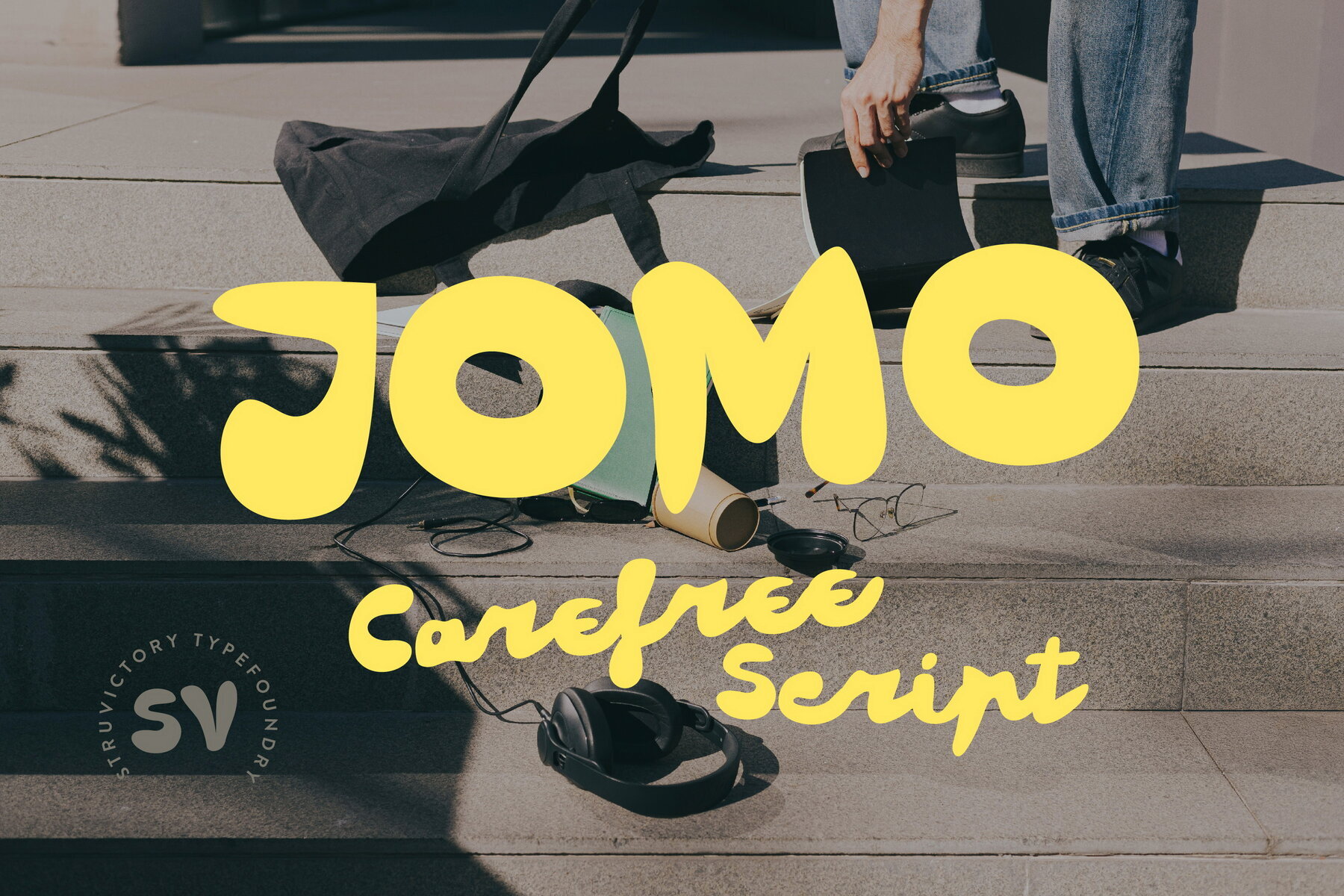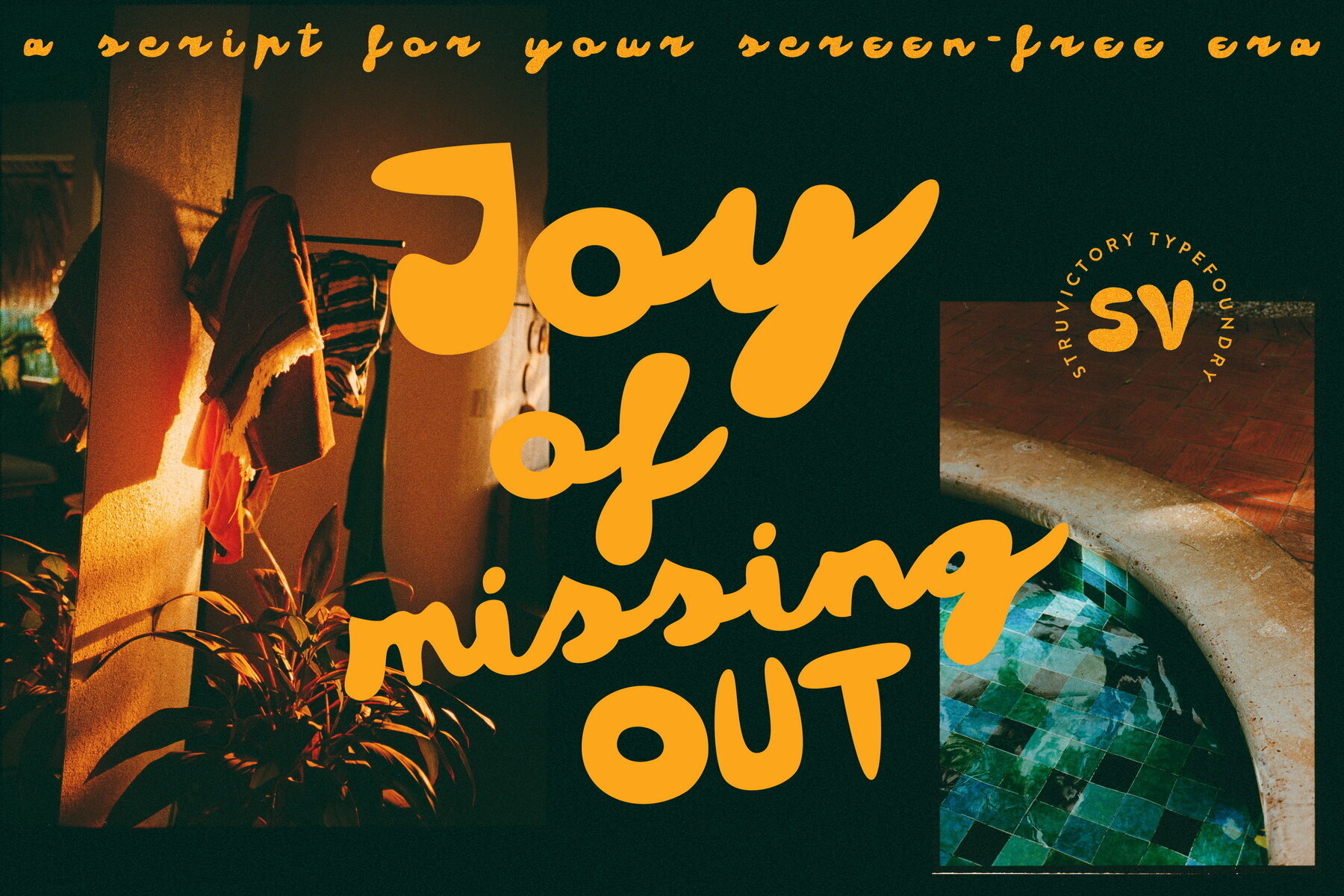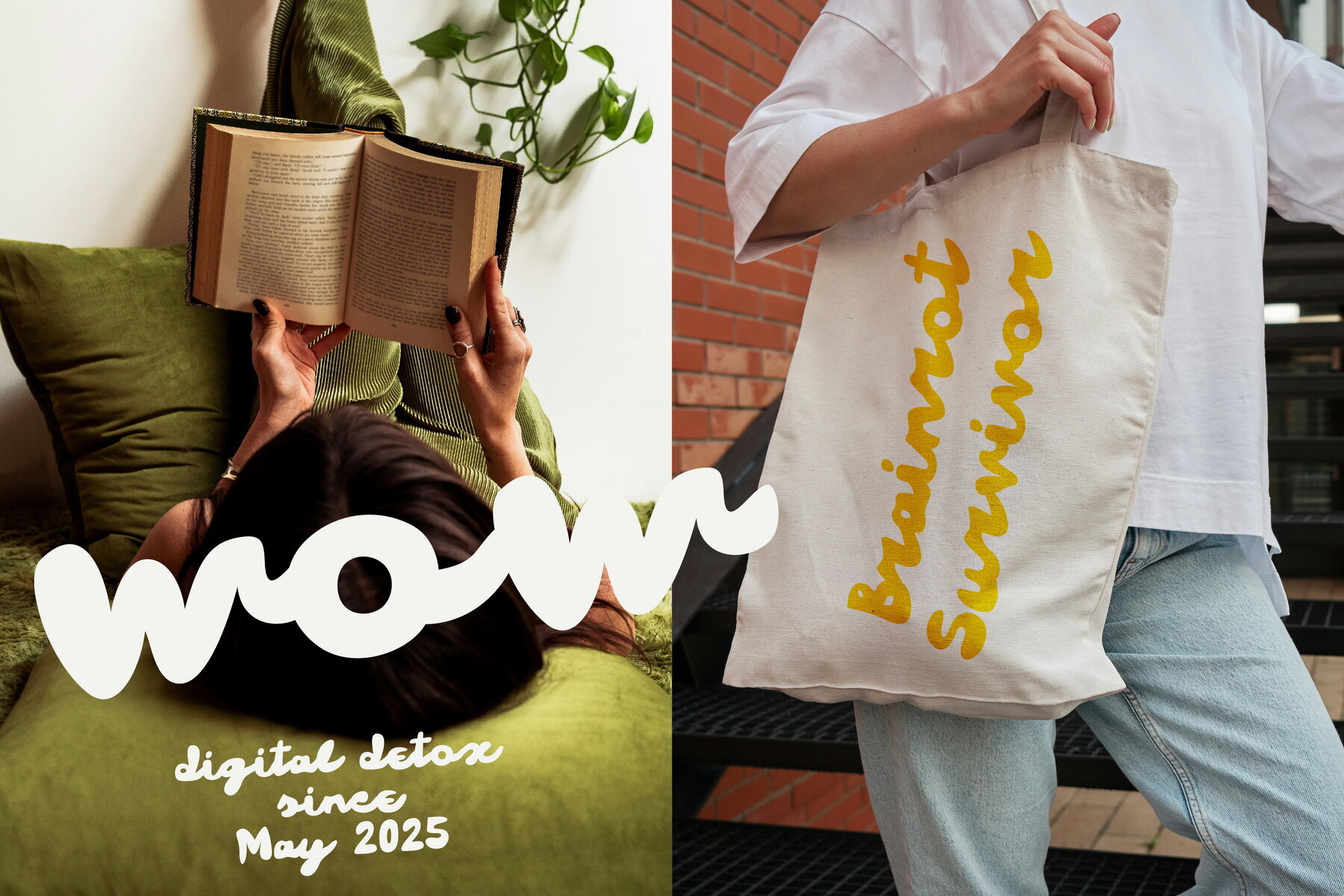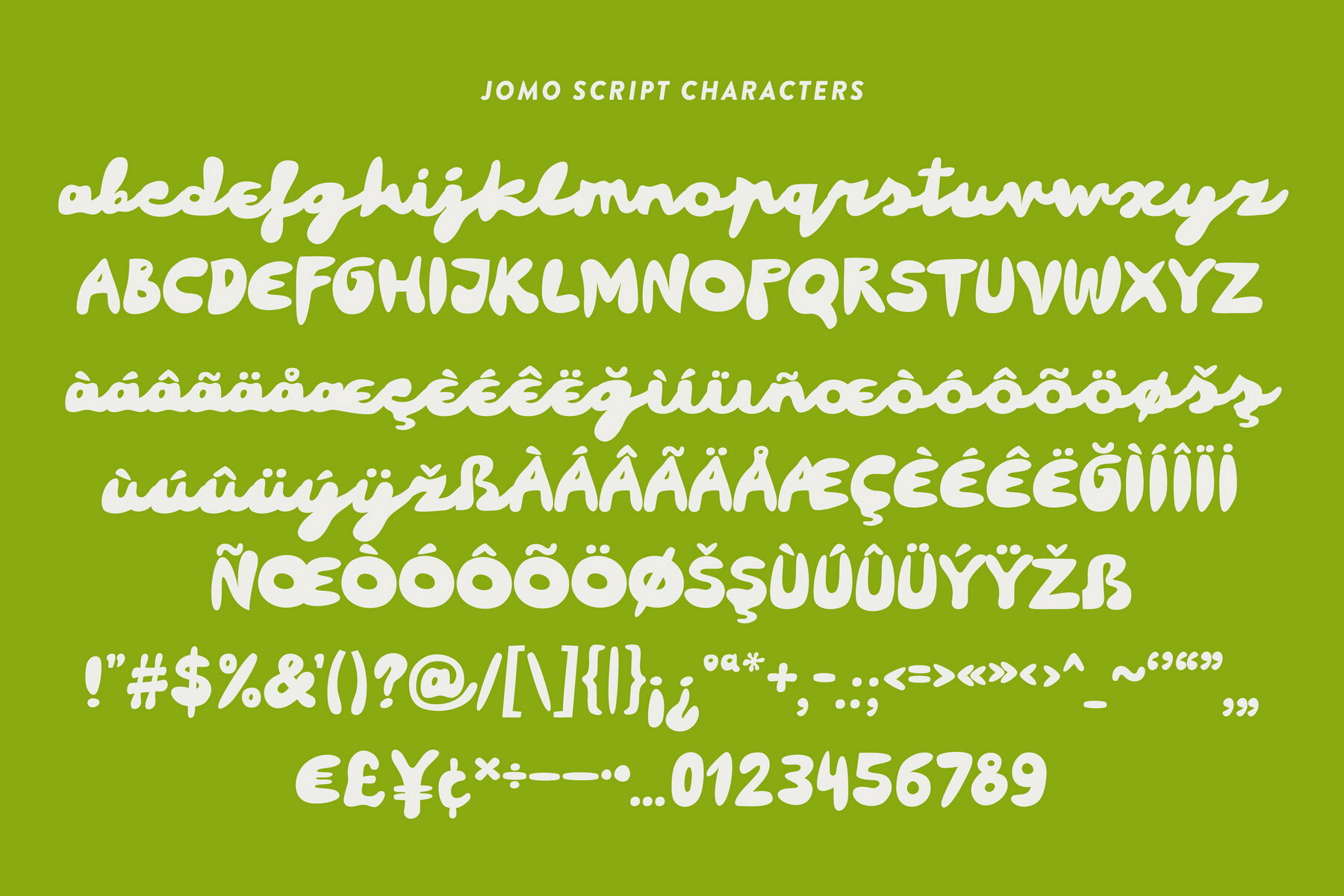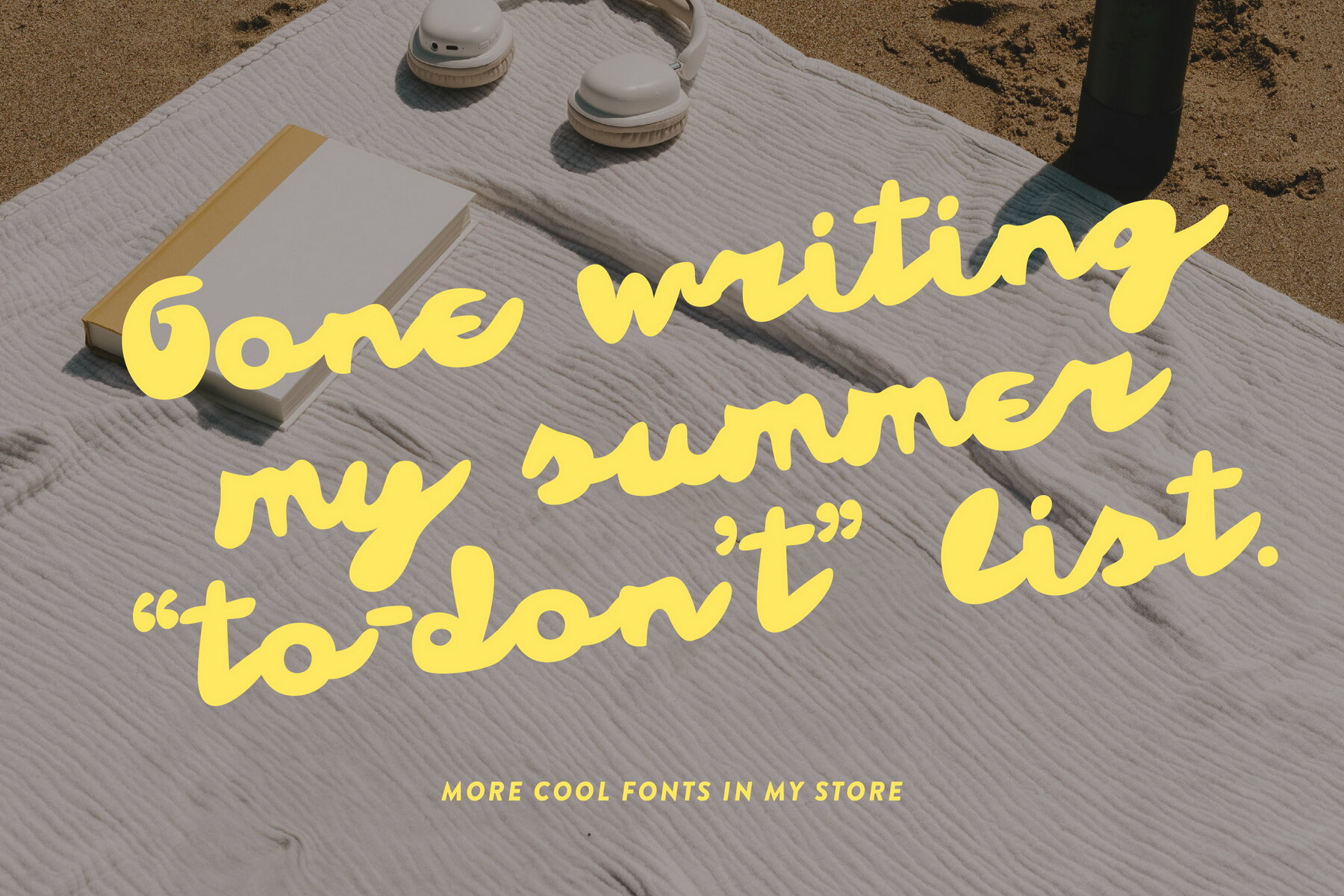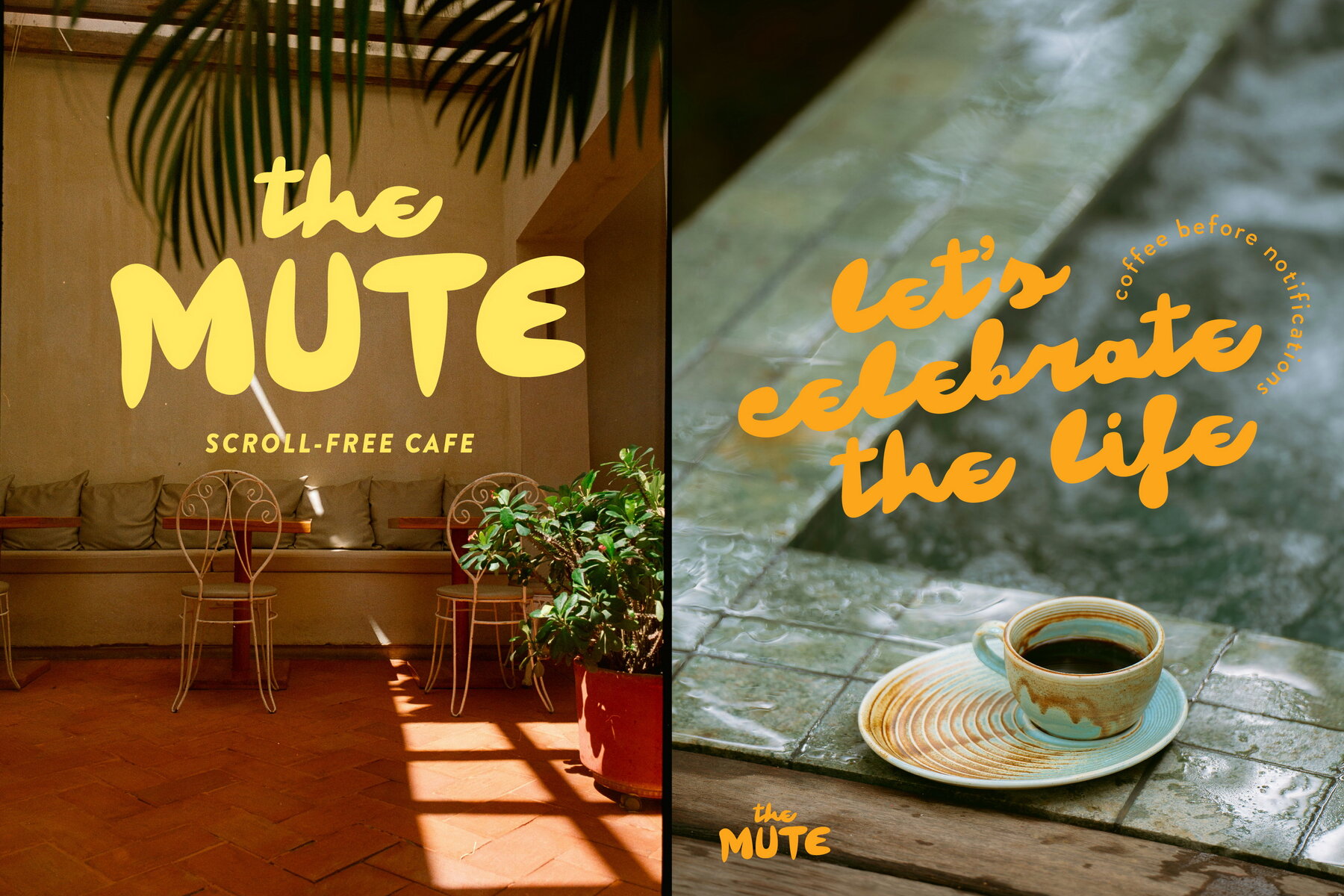
JOMO Script Font
JOMO Script
JOMO captures the joy of missing out with a carefree script font that draws upon analog aesthetics and the digital detox movement. Its loose strokes and nostalgic energy infuse designs with a sense of personality and freedom. JOMO is ideal for self-care brands, slow living projects, bold quotes, apparel, and packaging. This font brings a handwritten vibe that invites creative intention and pause.JOMO: Carefree Script with Nostalgic Energy